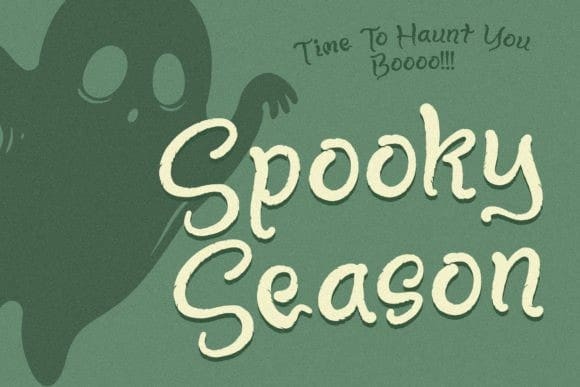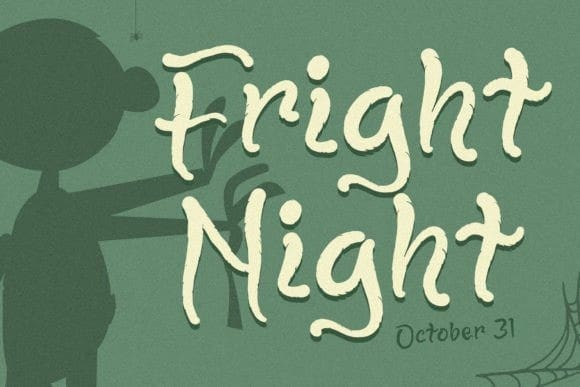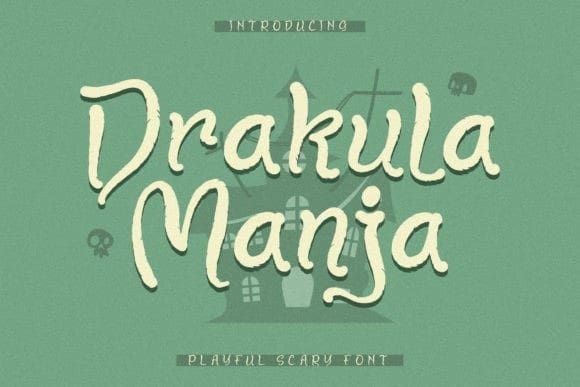
Drakula Manja Font
Drakula Manja Font – Playful Scary Font, suitable for any projects such as logos, branding projects, homeware designs, product packaging, mugs, quotes, posters, shopping bags, t-shirts, book covers, name cards, invitation cards, greeting cards, labels, photography, watermark, special events, and all your other lovely projects that need a beautiful script taste.